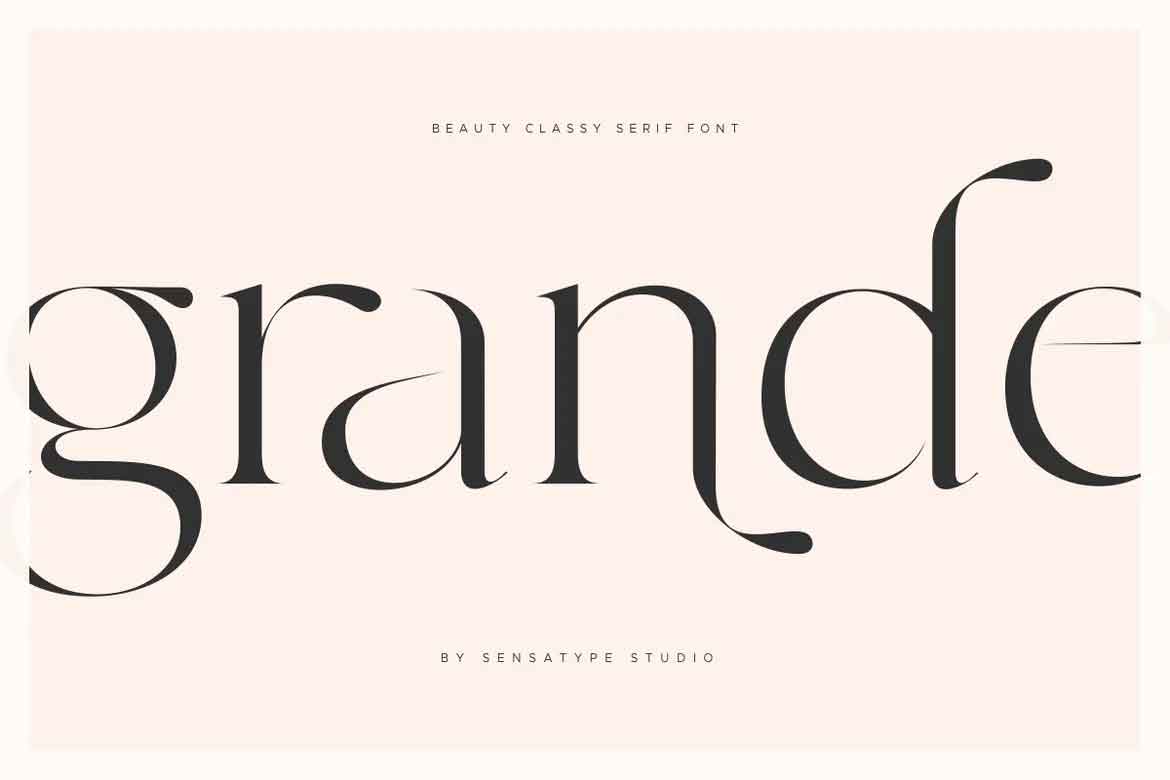
Grande font is a collections of a modern, feminine, beauty and classy characters, give you. Web grande italic font font family. Web lucida grande font free download.